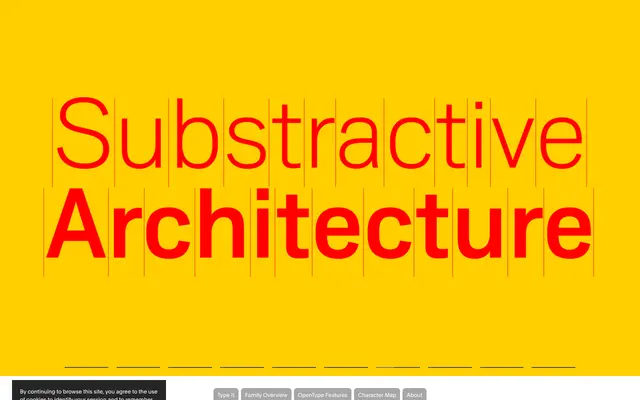
Metodo
Metodo specimen from Optimo
Davide Tomatis's revival of an early-20th-century European grotesque, with text and Mono cuts that carry distinctly metal-type curves into digital.
A grotesque by Italian designer Davide Tomatis, drawn from his master's project at ECAL in 2019. Metodo evolves a lineage of typefaces inspired by Neue Moderne Grotesk, the Wagner & Schmidt design that traveled European foundries as Aurora, Accidenz Grotesk, Cairoli and other names. Tomatis preserves the rounded shapes and tensions of the original metal type while drawing for digital systems. Five weights with italics, plus a Mono variant in matched weights with italics for code and editorial use.
Optimo describes Metodo as Davide Tomatis's evolution of a German type lineage that traveled European foundries under names including Neue Moderne Grotesk (Wagner & Schmidt), Aurora (Weber), Accidenz Grotesk (Haas) and Cairoli (Nebiolo).
Metodo Mono